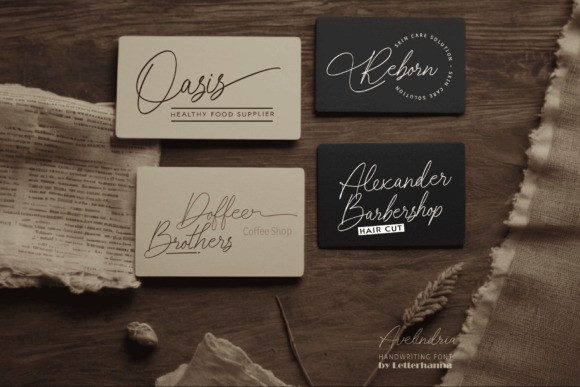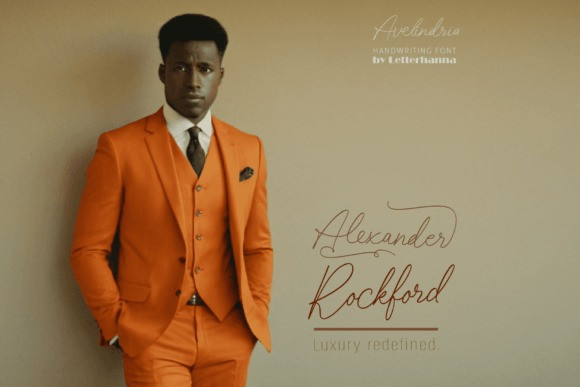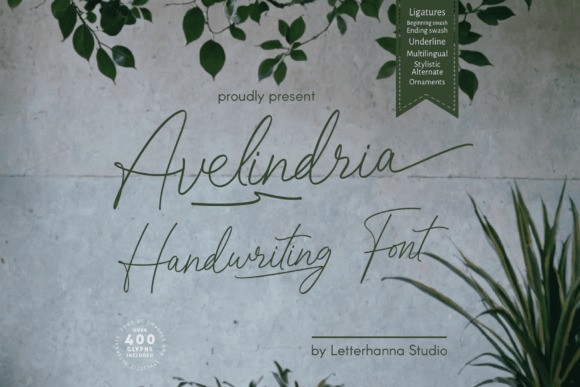
Avelindria Handwriting Font
Avelindria Handwriting Font a captivating new handwriting script that embodies elegance and versatility. Designed to enthrall, Avelindria boasts a wealth of stylistic alternates, swashes, and ligatures, allowing you to craft text with unmatched personality and flair.
Whether you’re gracing invitations with a touch of timeless beauty or adding a flourish to logos and branding materials, Avelindria empowers you to express yourself with captivating individuality.